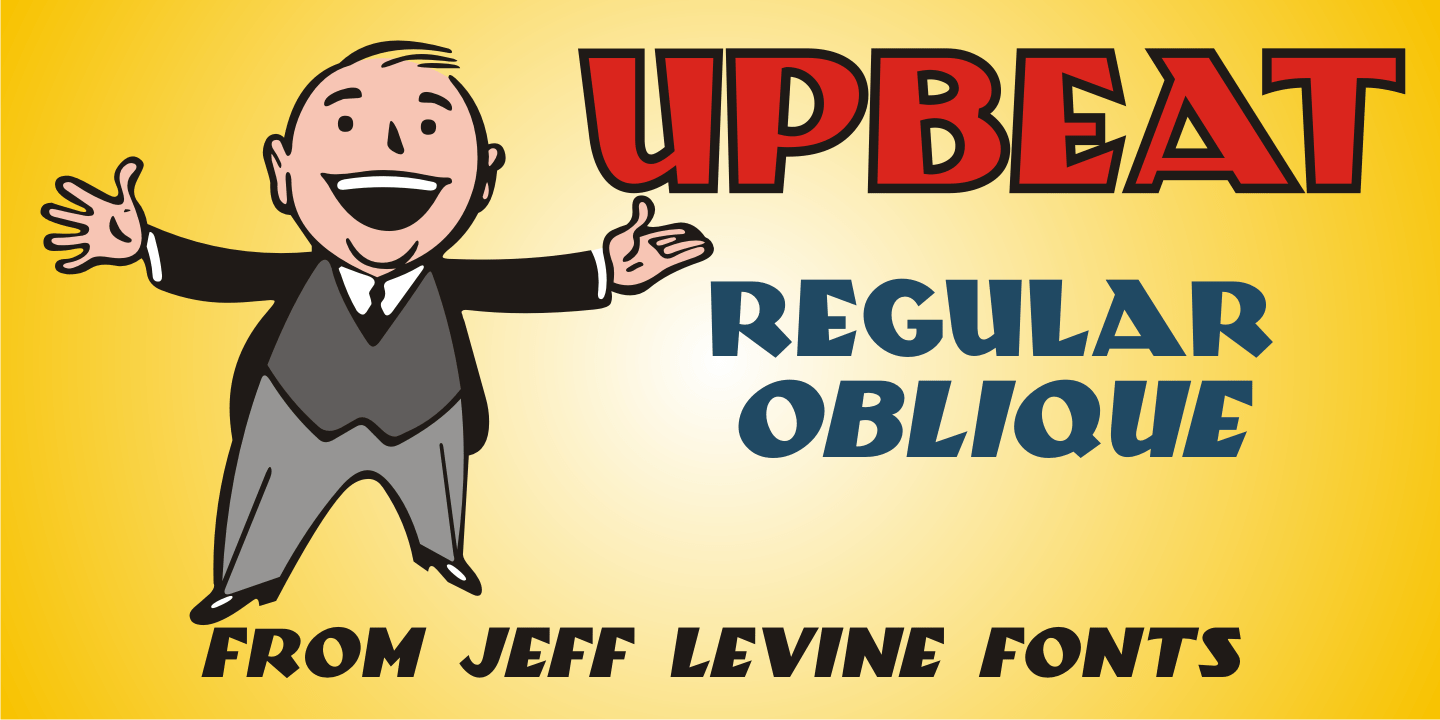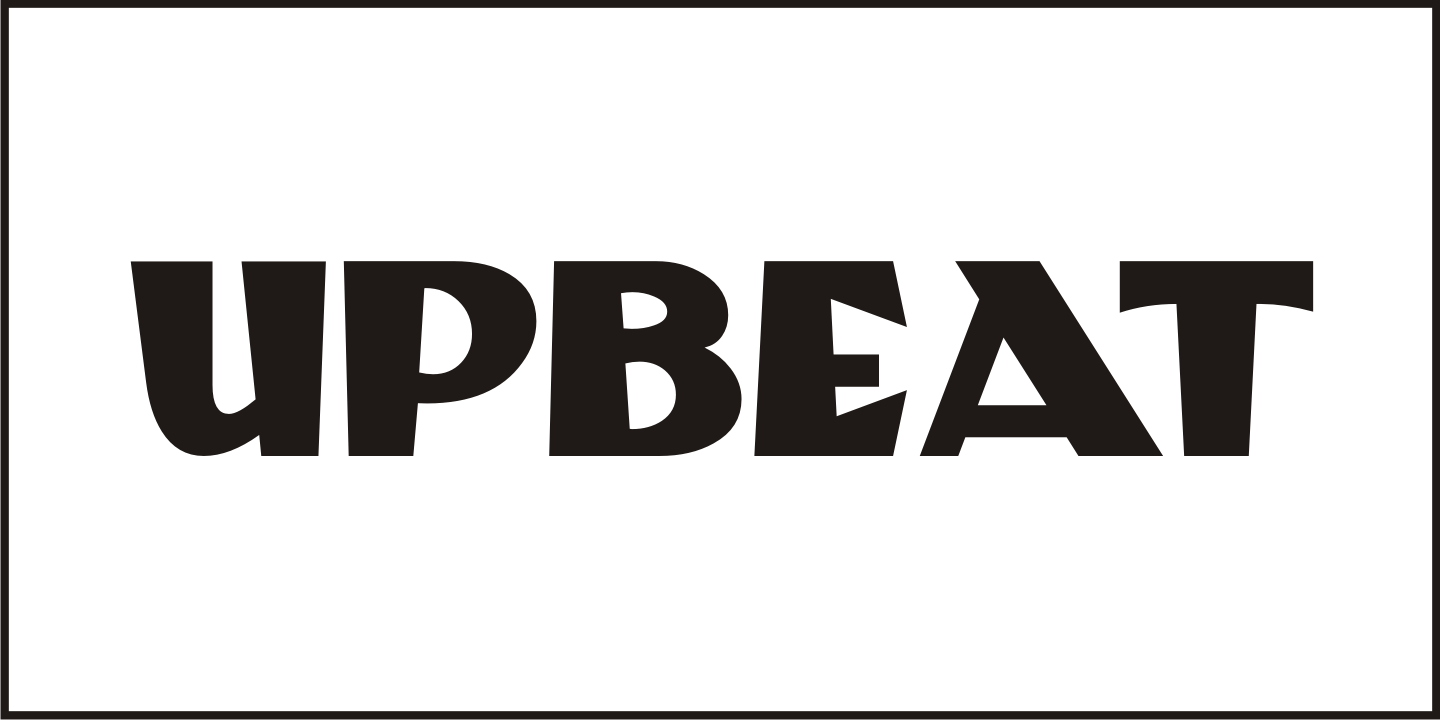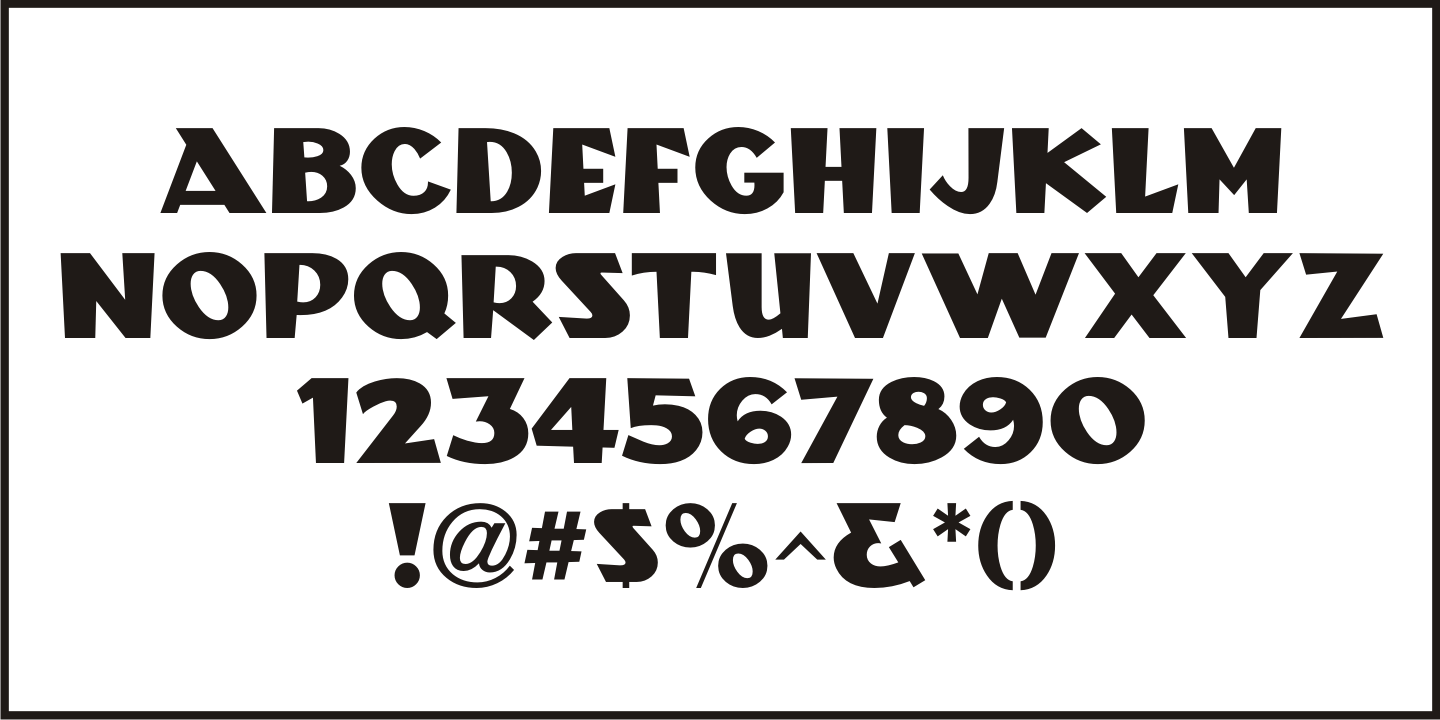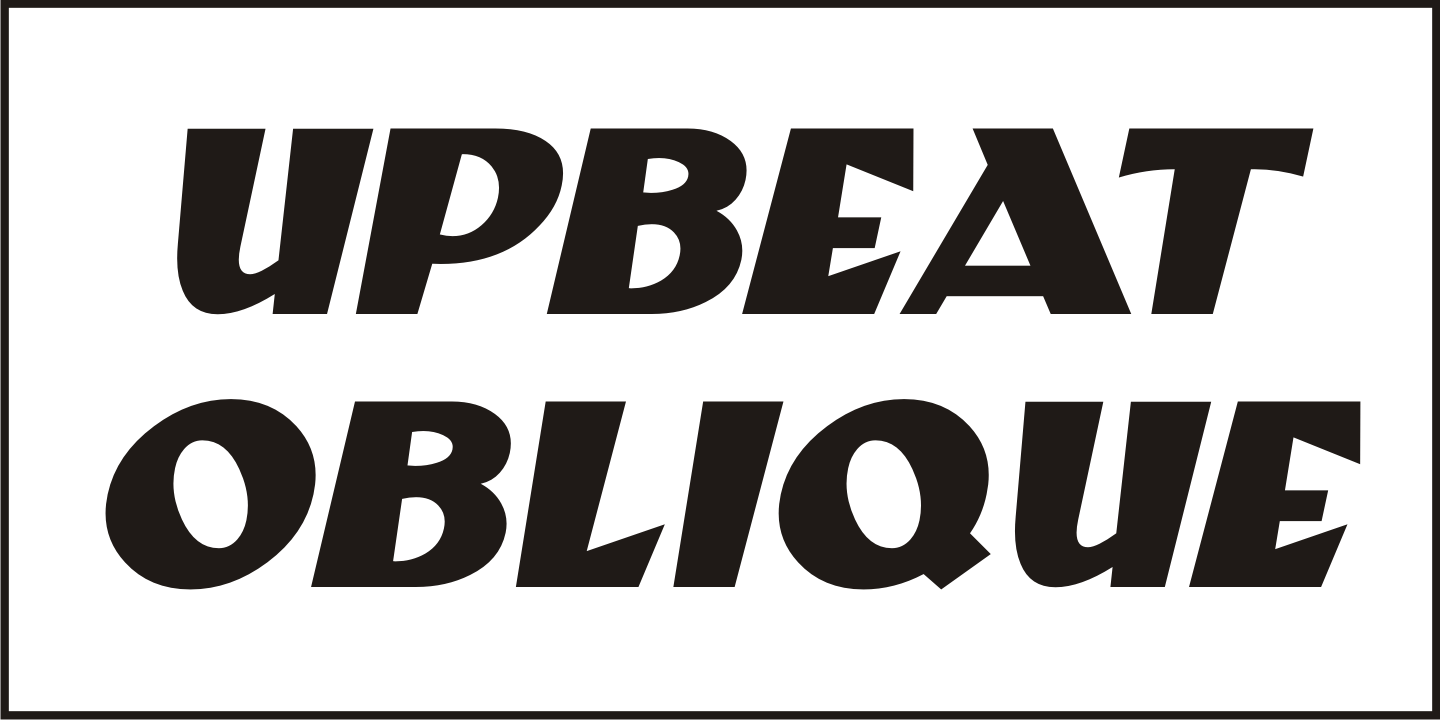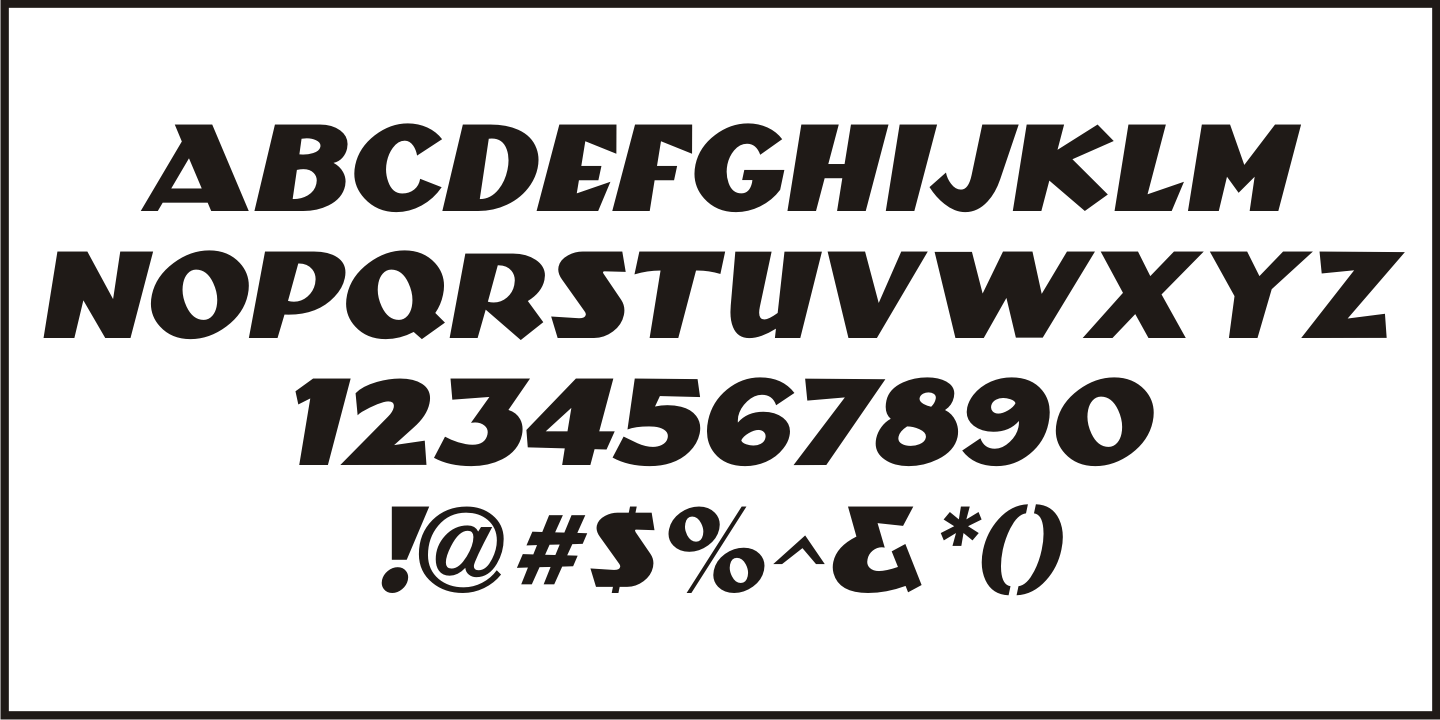
Upbeats
The free-form Art Nouveau hand lettering on the cover of the 1918 sheet music for 'Smilin' Through' (from the MGM motion picture of the same name starring Norma Shearer) is the model for Upbeat JNL; available in both regular and oblique versions.
Upbeats JNL Regular by Jeff Levine Fonts